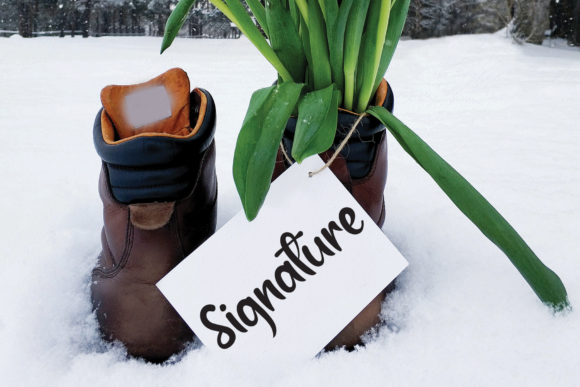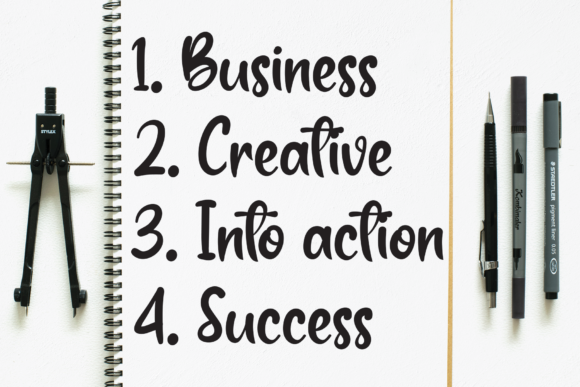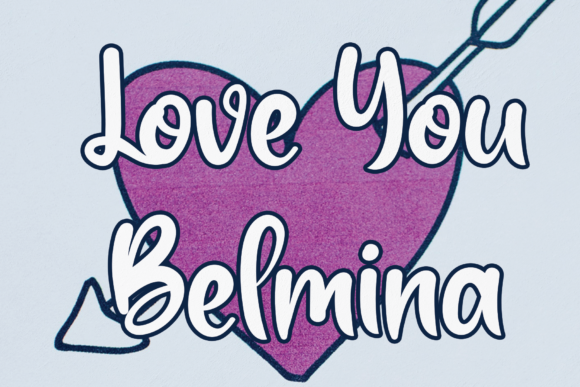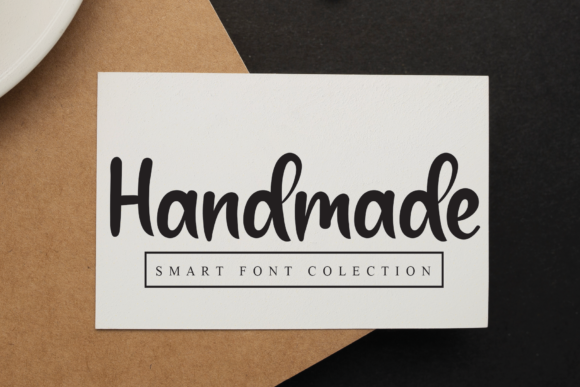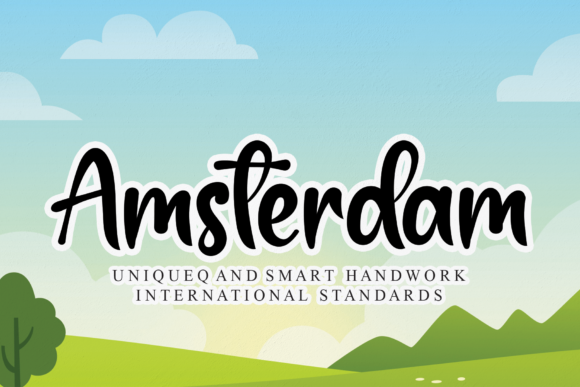
The Amsterdam Font: A Delicate and Elegant Design Companion
I’ll never forget the moment I stumbled upon the Amsterdam font while working on a project for a client who wanted a delicate, elegant look. I had been searching for what felt like hours, trying out font after font, but nothing seemed quite right. That was until I saw Amsterdam – its beautifully rounded letters and versatile style instantly caught my eye. I knew right then and there that I had found the perfect fit.
What I Love About Amsterdam
- ✨ Delicate and elegant design that’s perfect for a variety of projects
- ✅ Highly versatile style that works well in both digital and print formats
- 💫 Beautifully rounded letters that add a touch of sophistication to any design
- 🎨 Extensive range of OpenType features, glyphs, and stylistic alternates to experiment with
While Amsterdam is an amazing font, there are a few things to keep in mind. ⚠️ Some users have reported issues with kerning, particularly when using the font at smaller sizes. Additionally, 🤔 the font’s delicate nature can make it a bit tricky to read when used as a body font.
The Story Behind Amsterdam
Amsterdam was designed by a talented type designer who wanted to create a font that was both elegant and versatile. Inspired by the city’s rich history and cultural heritage, the designer aimed to create a font that would reflect the city’s delicate, refined beauty. The result is a font that’s perfect for a wide range of projects, from wedding invitations to branding and packaging.
Q: What is the Amsterdam font?
A: The Amsterdam font is a delicate and elegant handwritten font, perfect for a variety of design projects.
Q: Is the Amsterdam font easy to read?
A: While Amsterdam is a beautiful font, its delicate nature can make it a bit tricky to read when used as a body font. It’s best suited for headings, titles, and other display text.